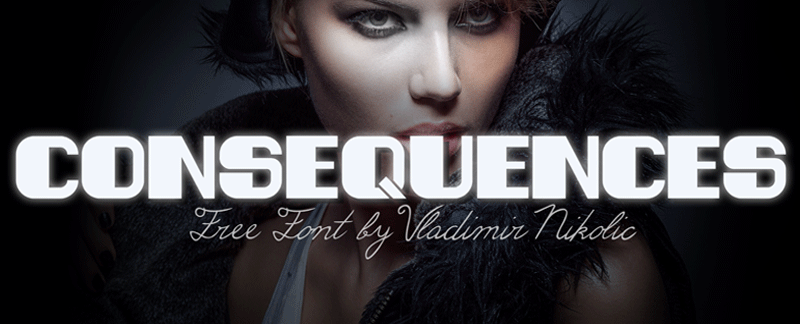
A classic and clean sans-serif font. Great for branding, logos, titling, signage, poster, flyers or t-shirts design, headlines and more! It is 100% free for personal and commercial usage |